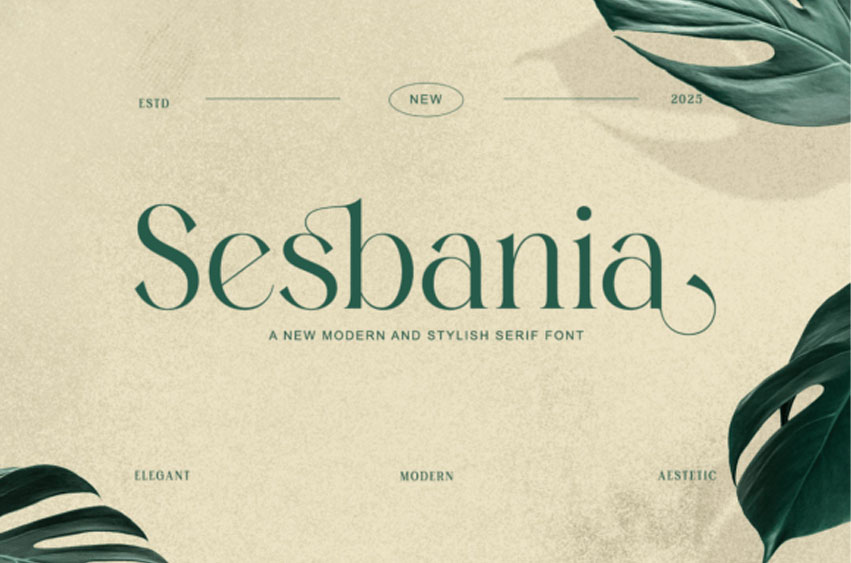
Sesbania Font
Sesbania Font is a modern minimal serif typeface that embodies elegance and natural sophistication. With its clean shapes and graceful ligatures, it’s ideal for branding, packaging, magazines, and product design.
Designed for creators who appreciate organic aesthetics, Sesbania elevates every layout with calm luxury.